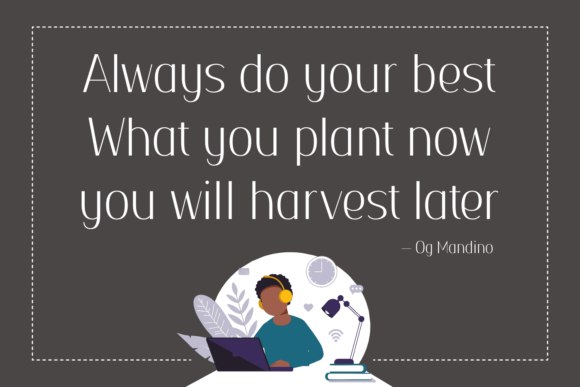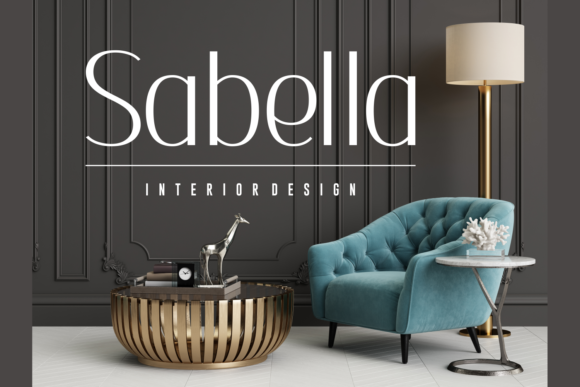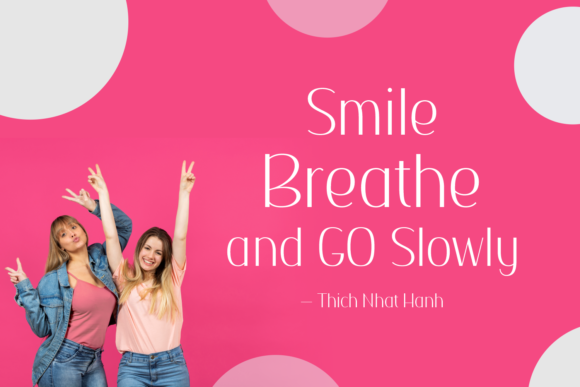
Introduction to Runova Font
Runova is a thin, cool and minimalist handwritten font.
No matter the topic, this font will be an incredibly asset to your fontsโ library, as it has the potential to elevate any creation .
Runova Font offers exceptional quality and versatility, making it a valuable addition to your design toolkit. Whether you’re creating for personal projects or commercial use, Runova Font delivers professional results.